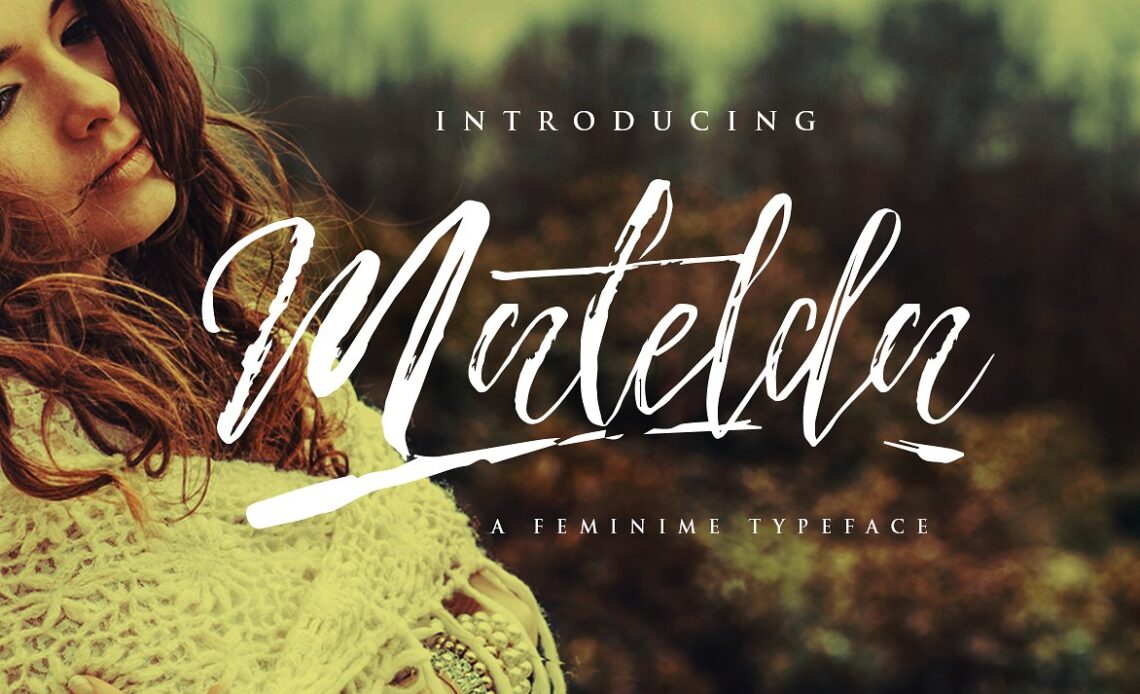
Introducing Matelda Font: A Delightful Script Font That Exudes Fun and Texture
In the realm of digital artistry, where words dance off the screen and visual aesthetics captivate the senses, Matelda Font emerges as a true masterpiece. This enchanting script font, crafted by the visionary designers at Kreativ_Fc, is a symphony of elegance and charm, inviting you on a journey through the world of timeless beauty.
Matelda's essence lies in its playful dance of curves and strokes, reminiscent of a carefree summer breeze whispering through a field of wildflowers. Each letterform is meticulously designed to evoke a sense of warmth and nostalgia, transporting you to simpler times where handwritten notes held cherished memories and whispered secrets.
Unlike other script fonts that often feel stiff and formal, Matelda possesses an innate sense of fluidity and grace. Its lines flow seamlessly, connecting words and ideas with an effortless elegance that draws the eye and captivates the imagination. Whether you're a seasoned designer seeking to add a touch of charm to your projects or an aspiring wordsmith seeking the perfect font to bring your stories to life, Matelda is your muse.
With its remarkable versatility, Matelda transcends the boundaries of genre and style. It effortlessly complements vintage-inspired designs, lending a timeless charm to logos, branding, and packaging. Yet, it also seamlessly integrates into contemporary aesthetics, adding a touch of whimsy to social media posts, website headers, and digital marketing campaigns.
As you explore the depths of Matelda's character, you'll discover a font that's as versatile as it is captivating. It dances gracefully across wedding invitations, adding a touch of romance and elegance to the most special day of your life. It lends a touch of whimsy to children's books, bringing beloved characters and enchanting stories to life. And it adds a touch of sophistication to business cards and marketing materials, leaving a lasting impression that sets you apart from the competition.
Matelda is more than just a font; it's an experience. It's an invitation to let your creativity soar, to embrace the joy of self-expression, and to leave an indelible mark on the hearts of your audience. With its captivating charm, endless versatility, and undeniable beauty, Matelda Font is your gateway to a world where words come alive and visual masterpieces are born.